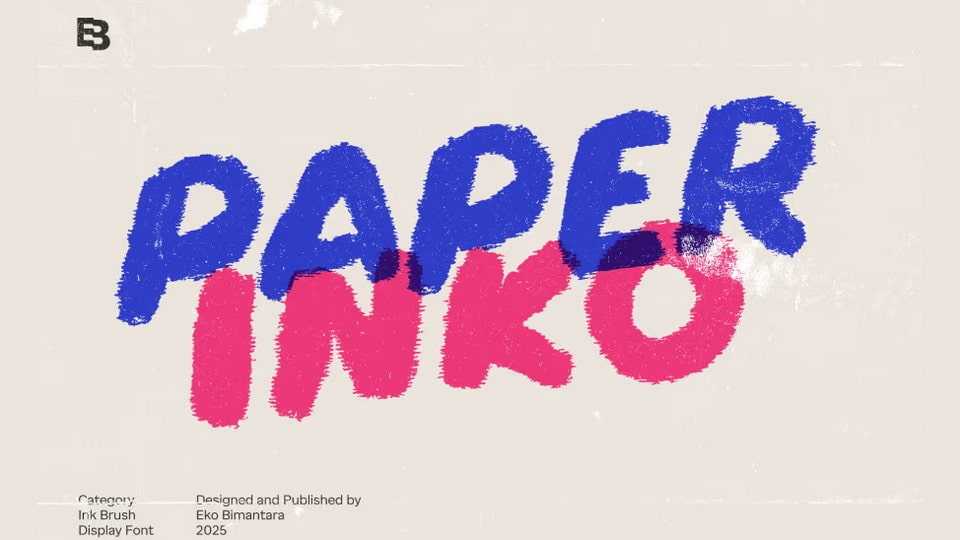
Download Paper Inko font, a bold and expressive ink brush display typeface that captures the raw, tactile energy of hand-drawn strokes on textured paper.